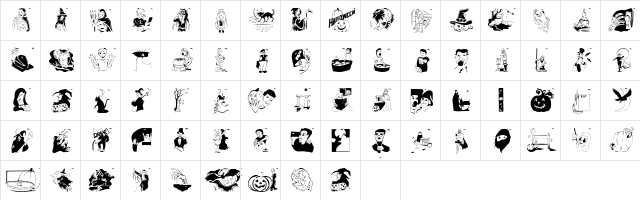
HelloVienna2005 Regular
HelloVienna2005 is a composed and adaptable typeface that performs quietly and consistently across a wide range of design contexts.